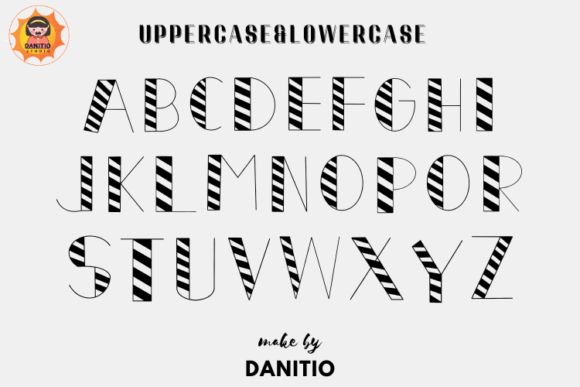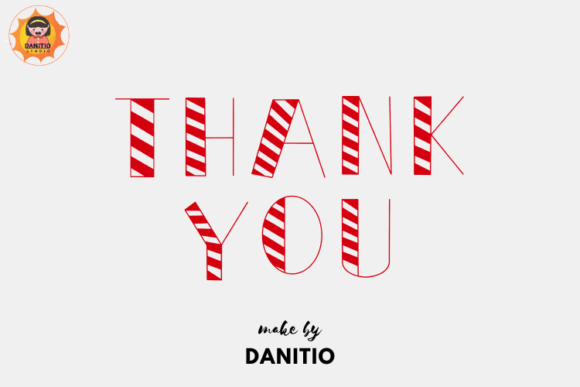
Introducing Harman Font: The Sweetest Display Font for Christmas
Are you looking for a font that’s as sweet as the holiday season? Look no further than Harman Font, a charming display font featuring a candy cane pattern that’s perfect for Christmas and beyond. In this article, we’ll dive into the details of Harman Font, exploring its features, uses, and benefits for designers and crafters.
A Festive Font for the Holiday Season
Harman Font is a rather cute display font that’s specifically designed to add a touch of festive cheer to your designs. Its candy cane pattern is reminiscent of the classic holiday treat, making it an ideal choice for Christmas-themed projects. Whether you’re creating digital items, greeting cards, presentations, t-shirts, mugs, tote bags, or any other product, Harman Font is the perfect choice.
Key Features of Harman Font
- Candy Cane Pattern: Harman Font features a unique candy cane pattern that’s sure to add a touch of holiday magic to your designs.
- Display Font: Harman Font is a display font, making it perfect for headlines, titles, and other prominent text elements.
- Versatile: Harman Font can be used for a wide range of projects, from digital items to physical products like t-shirts, mugs, and tote bags.
Uses for Harman Font
Harman Font is a versatile font that can be used for a wide range of projects, including:
- Digital Items: Use Harman Font to create festive digital items like holiday greeting cards, social media graphics, and email newsletters.
- Physical Products: Harman Font is perfect for creating holiday-themed physical products like t-shirts, mugs, tote bags, and more.
- Presentations: Add a touch of holiday cheer to your presentations with Harman Font.
- Greeting Cards: Use Harman Font to create festive holiday greeting cards for friends and family.
Harman Font offers a range of benefits for designers and crafters, including:
- Time-Saving: Harman Font saves you time and effort by providing a pre-designed font that can be easily customized to fit your needs.
- Unique Designs: Harman Font helps you create unique and eye-catching designs that are sure to stand out from the crowd.
- Easy to Customize: Harman Font is easy to customize, allowing you to adjust the font to fit your specific design needs.
- High-Quality: Harman Font is a high-quality font that’s designed to produce crisp, clear text that’s perfect for printing or digital use.